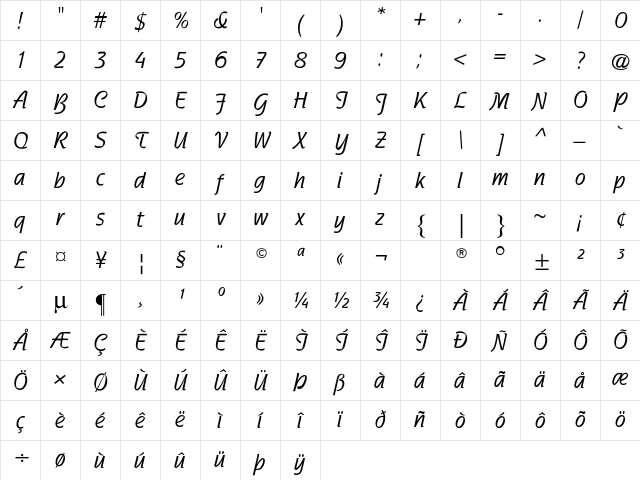
Complete ATNadianne-MediumCondensed Regular glyph index. Displaying only characters natively supported by ATNadianne-MediumCondensed Regular font.
ATNadianne-MediumCondensed is a composed and adaptable typeface that performs quietly and consistently across a wide range of design contexts. Its narrow stance lets it pack a punch even in space-constrained designs.